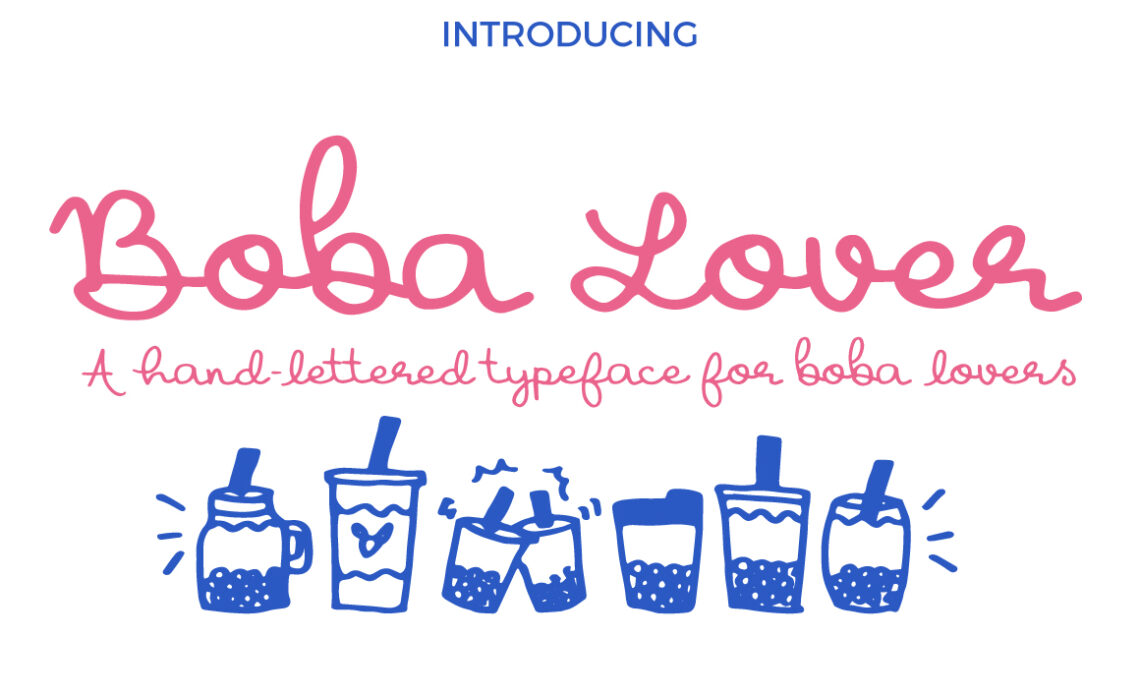
Introducing Boba Lover, the enchanting script font that transports you to a realm of cuteness and tranquility. Inspired by the sheer bliss of sipping on boba tea, this font embodies the essence of joy and sunshine.
Unlike ordinary fonts, Boba Lover dances across your designs, adding a touch of whimsy and warmth. Its charming curves and playful strokes evoke the feeling of carefree laughter, making it the perfect choice for adding a dash of cheer to your creative projects.
Whether you're crafting playful invitations, designing whimsical posters, or creating heartfelt greeting cards, Boba Lover is your go-to font for injecting a dose of pure happiness. Its versatility extends from personal projects to professional endeavors, making it an indispensable tool for any designer's arsenal.